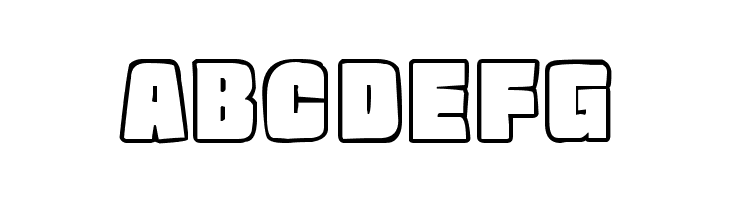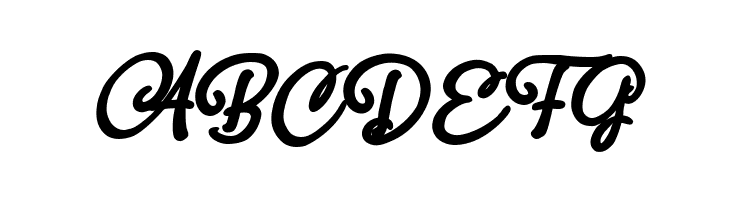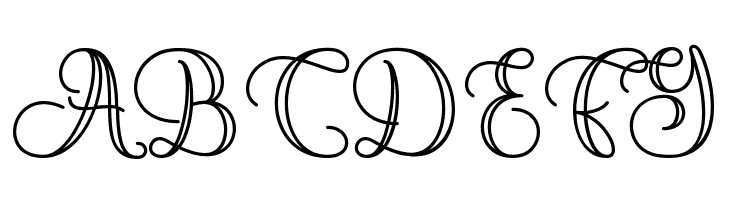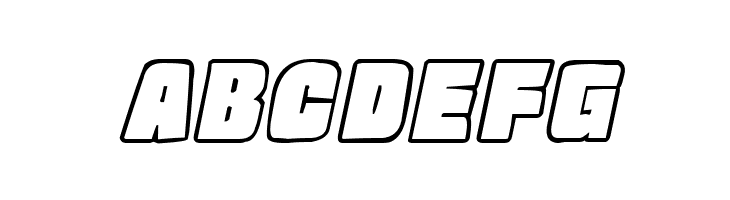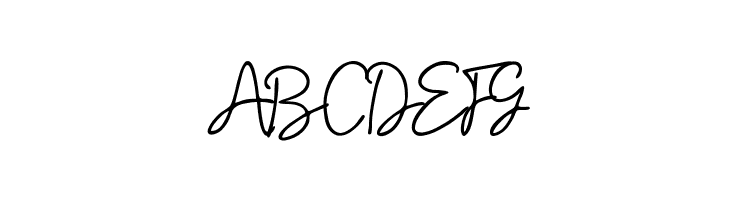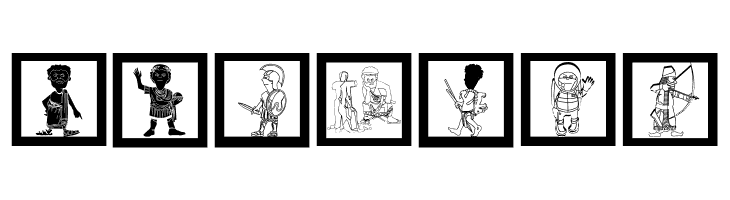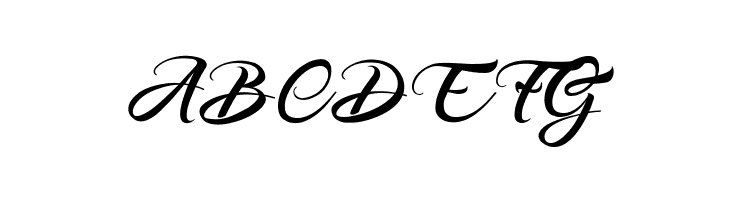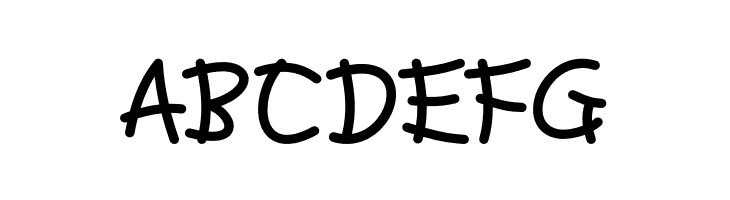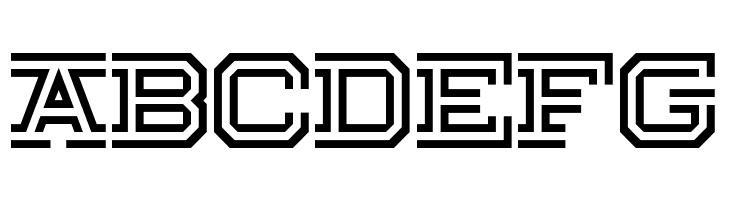
• Hirondelles des Alpes
An elegant and ornate script font with flowing cursive style.
• Hiroshio
( Em Nazar )
A playful handwritten font with a casual and friendly style.
• HistoricPeople
Hand-drawn, character-based decorative font inspired by historic figures.
• Hisyam
An elegant and decorative script font with intricate loops and flourishes.
• Hokjesgeest
( Tup Wanders - www.tupwanders.nl )
A bold, geometric font with a double-line structure and modern, industrial feel.
• Holiday Chocolate
( Fonts by Joseph Dawson )
A bold, outlined, and playful font perfect for festive themes.
• Holiday Chocolate Italic
A bold, playful, and three-dimensional font with a comic-style flair.
• Holland Blocks
( www.lars-manenschijn.nl )
A bold, geometric font with a blocky, pixel-art style.
• Hollandy
A playful, handwritten cursive font with smooth, connected strokes.
• Hollister Switch
A bold, cursive font with a playful and dynamic style.